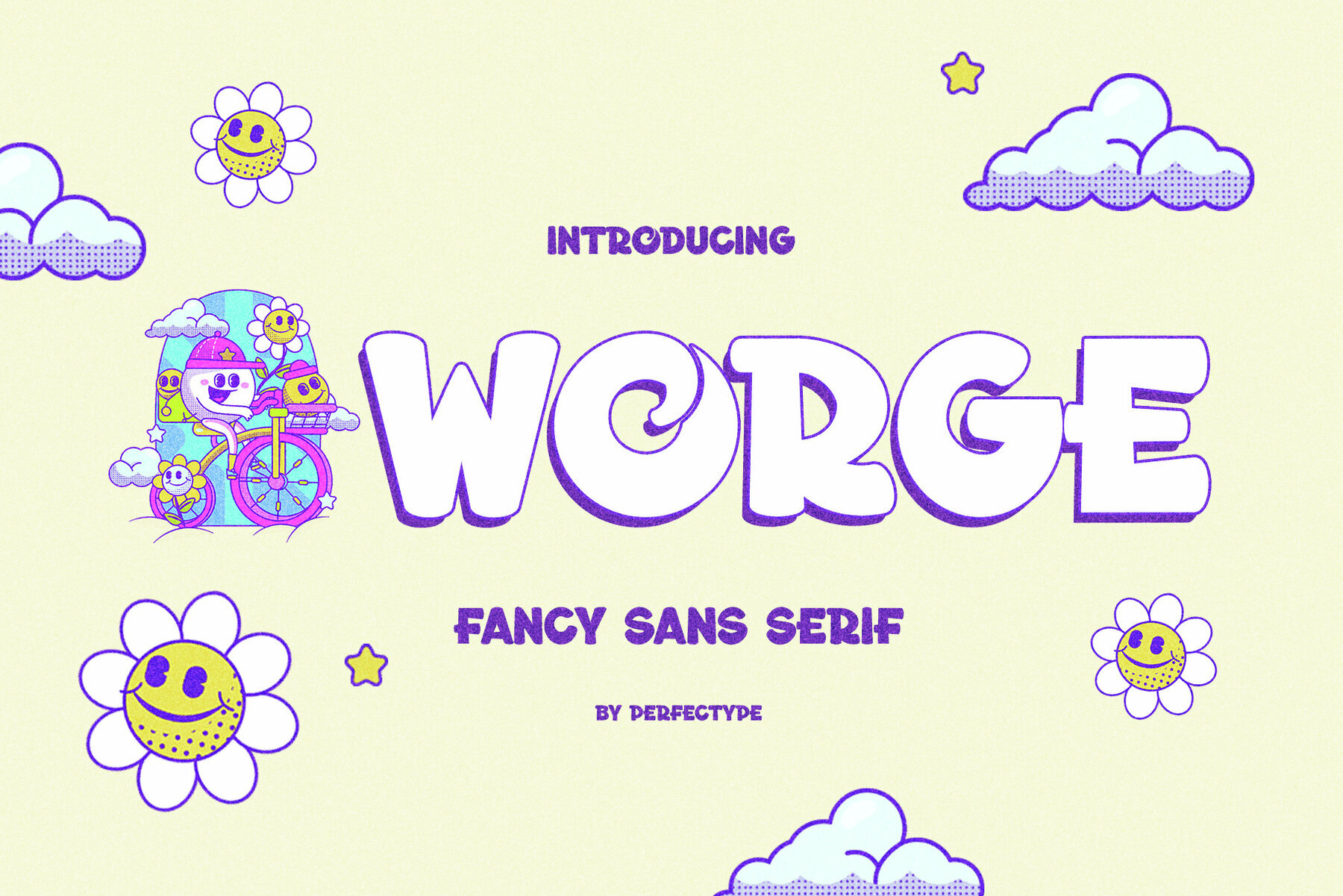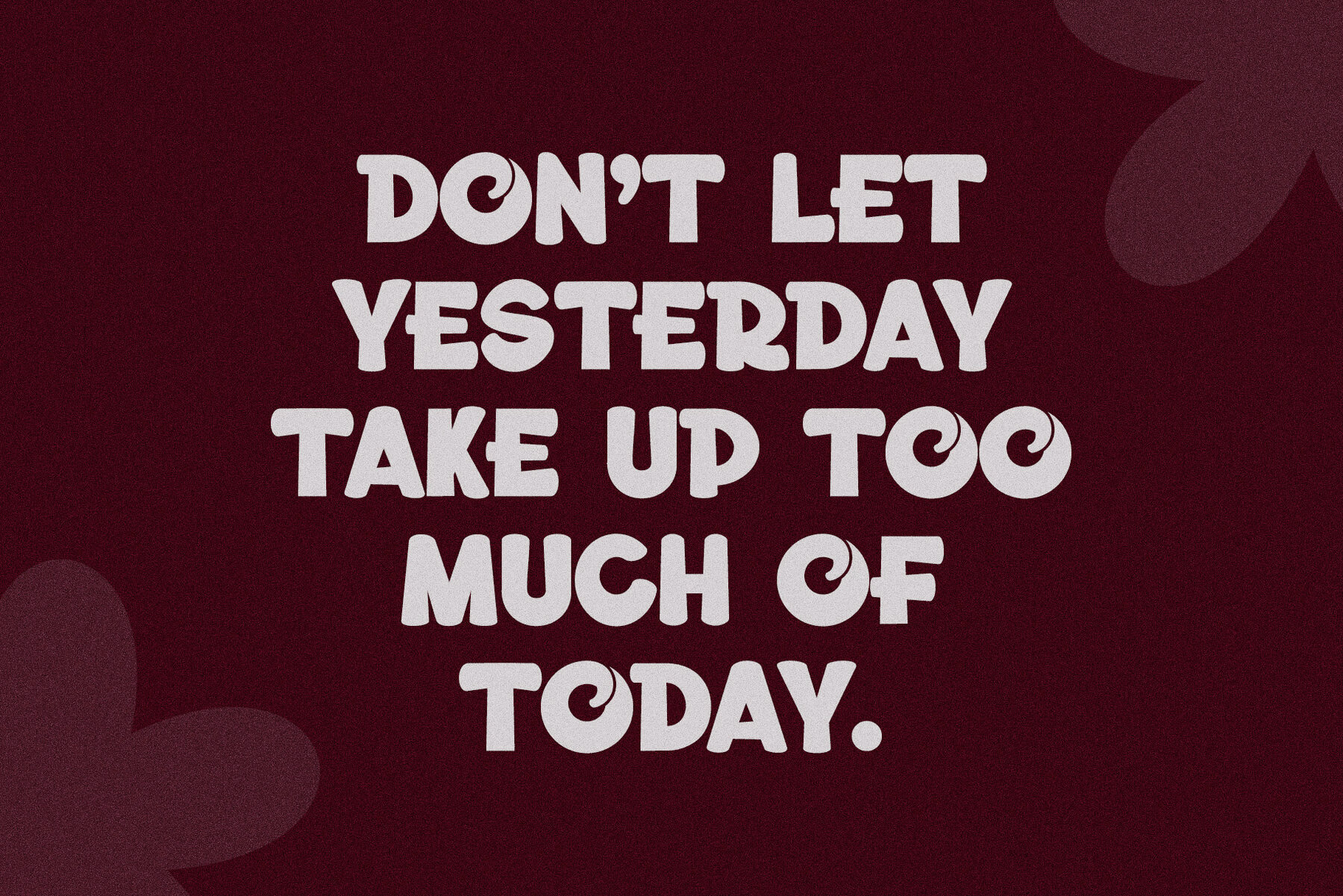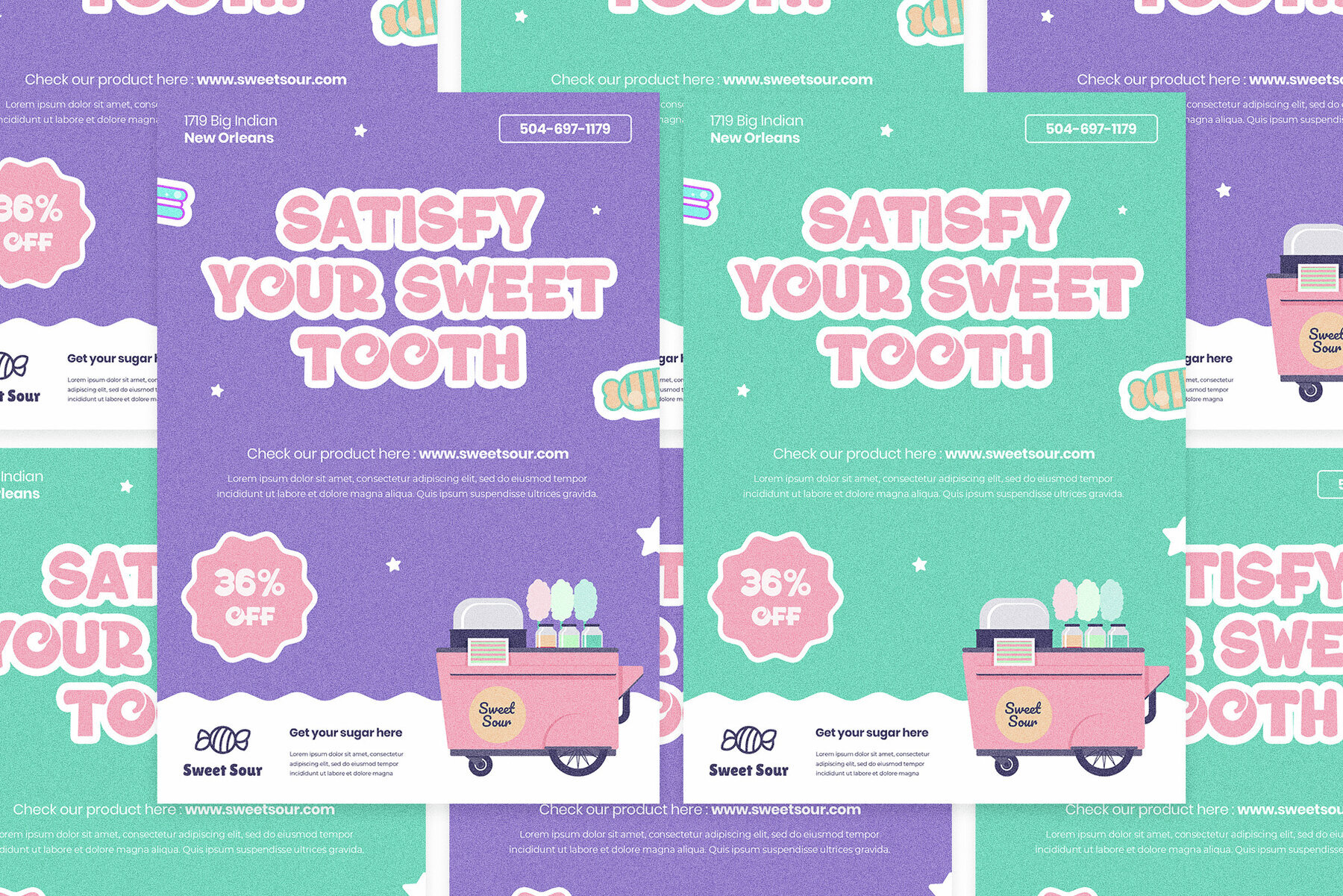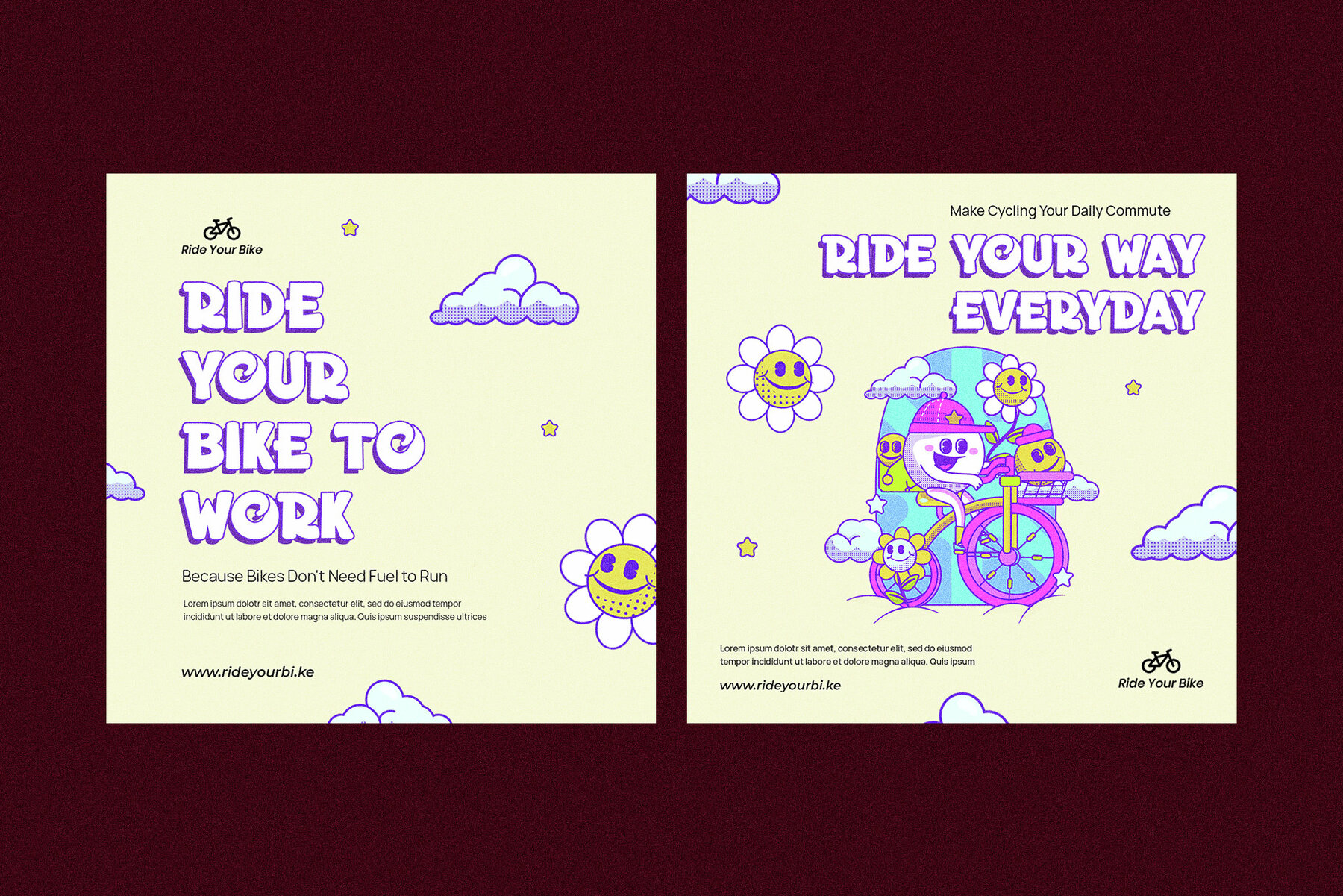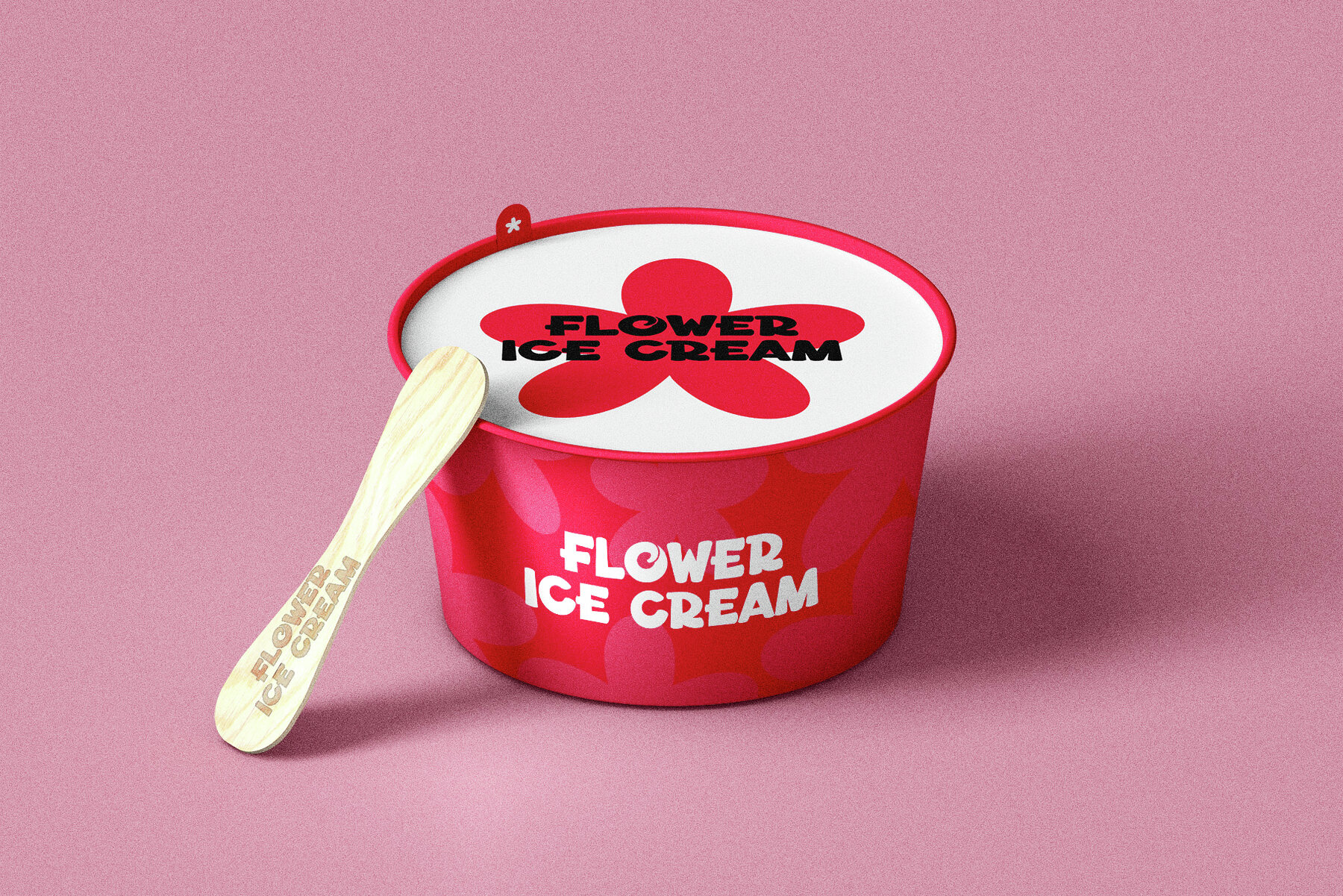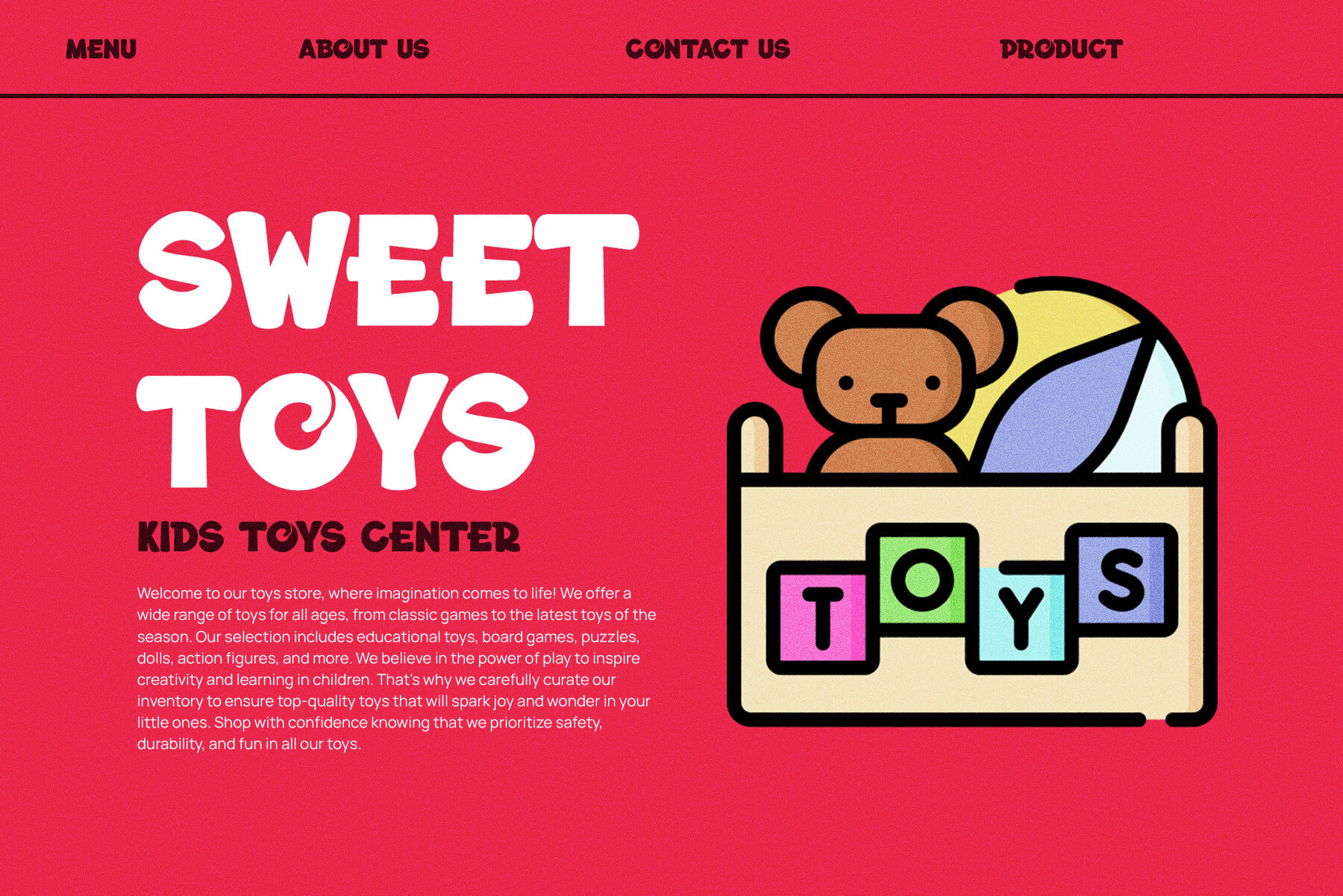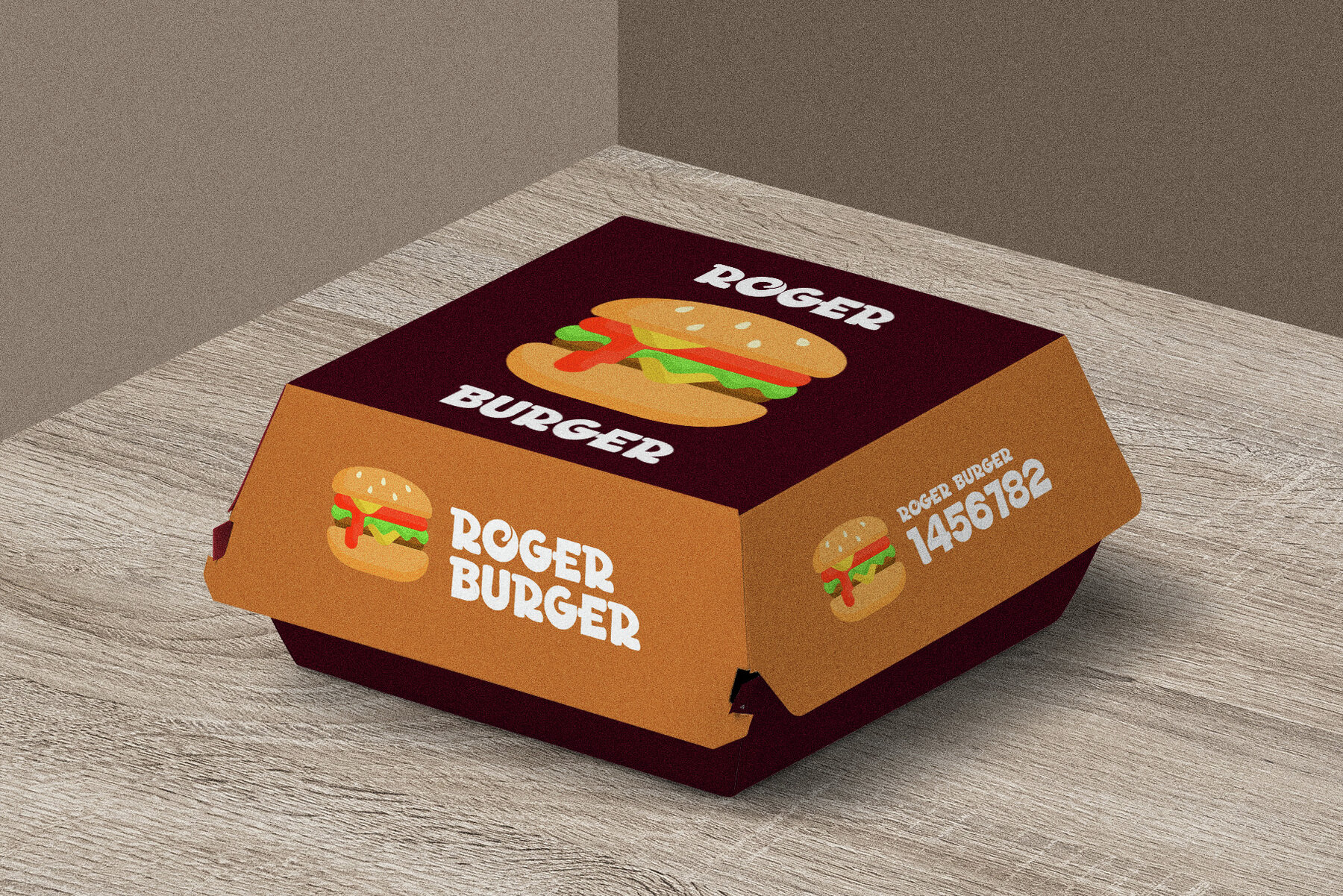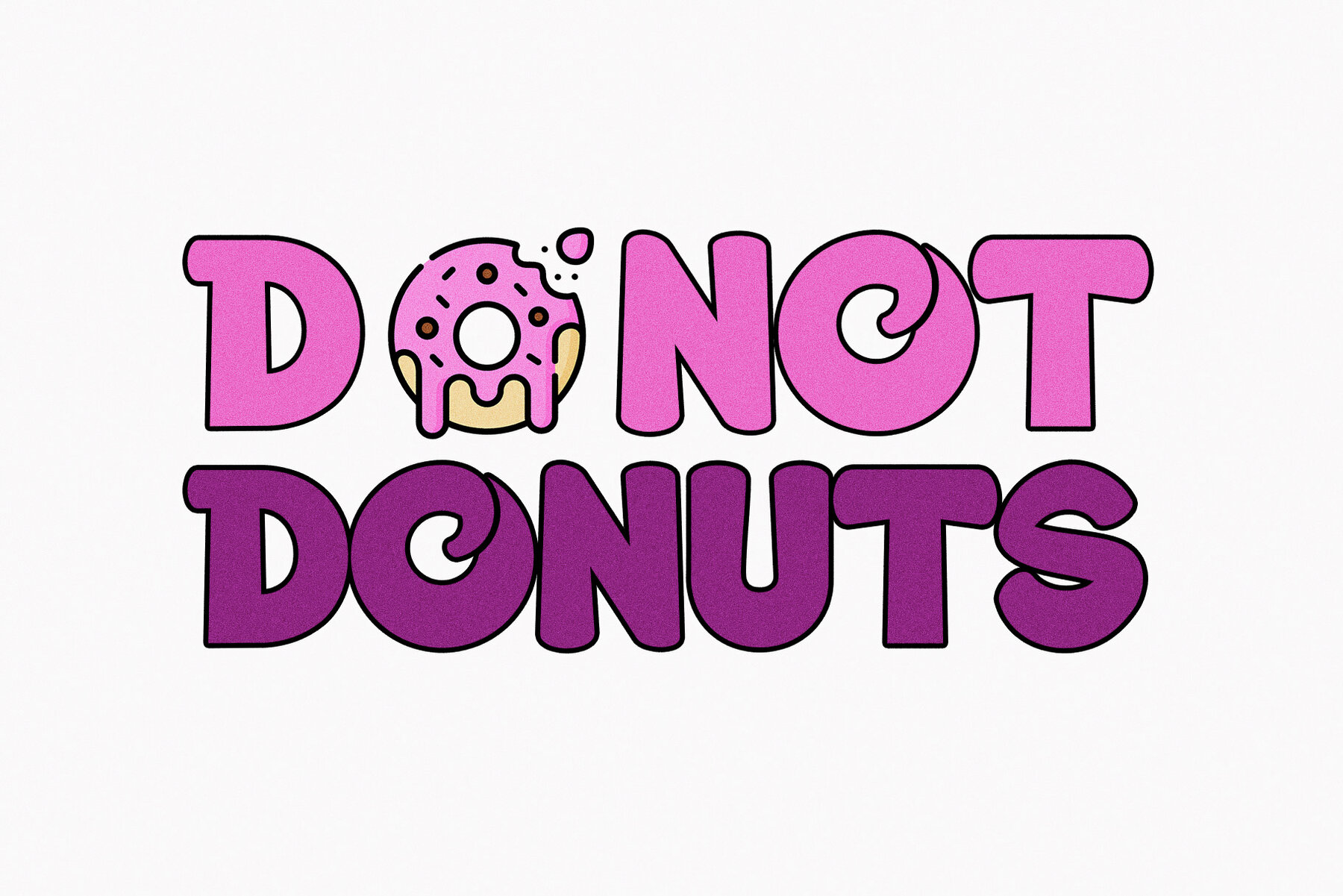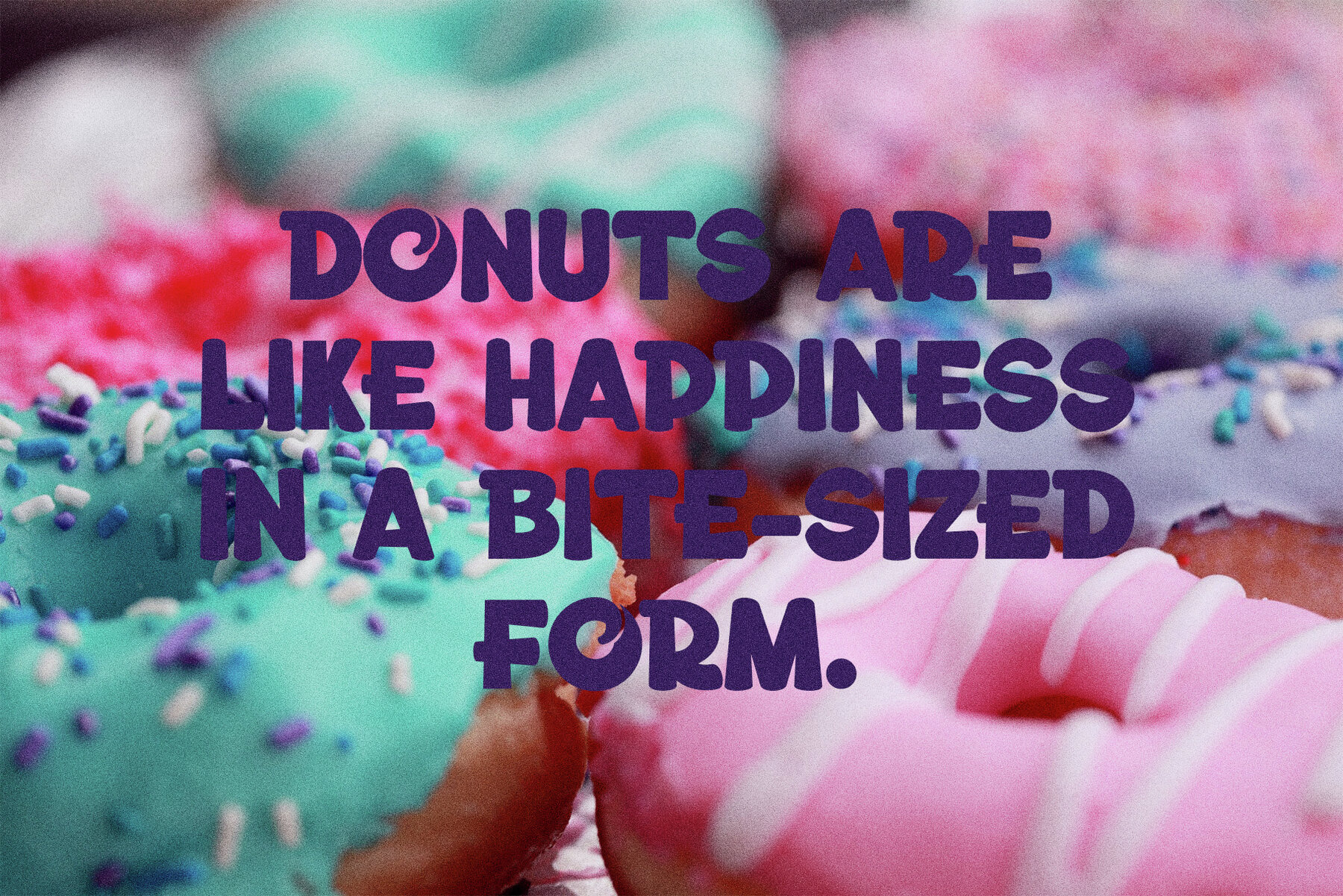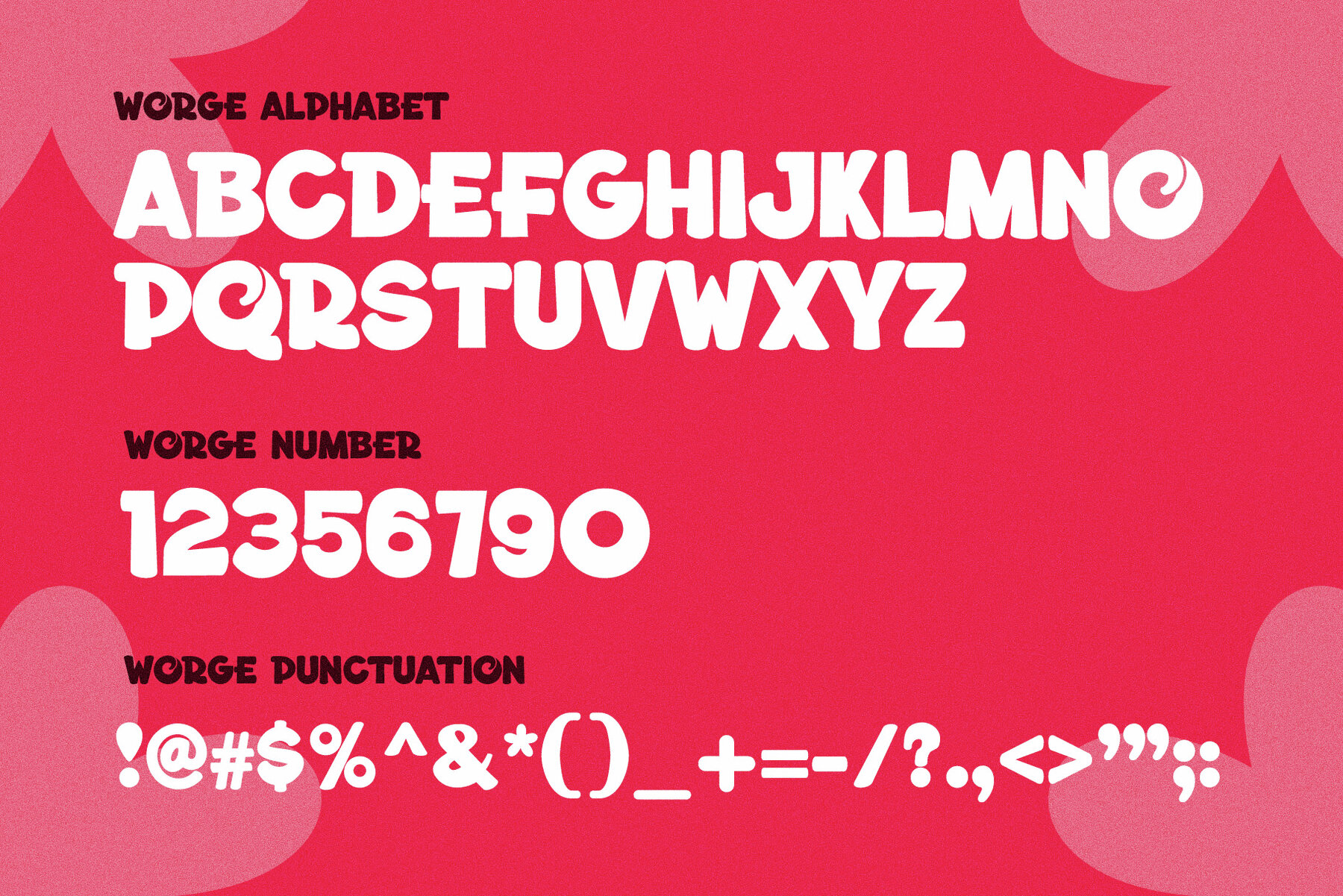
Worge Font
Worge Regular
This bold, sans-serif font is designed to make a strong impact. Its heavy weight and clean lines make it ideal for modern design projects including headlines, branding, posters, and advertising materials. The geometric and blocky nature of the font ensures that it stands out in any graphic or web design, making it perfect for logos and bold text applications.